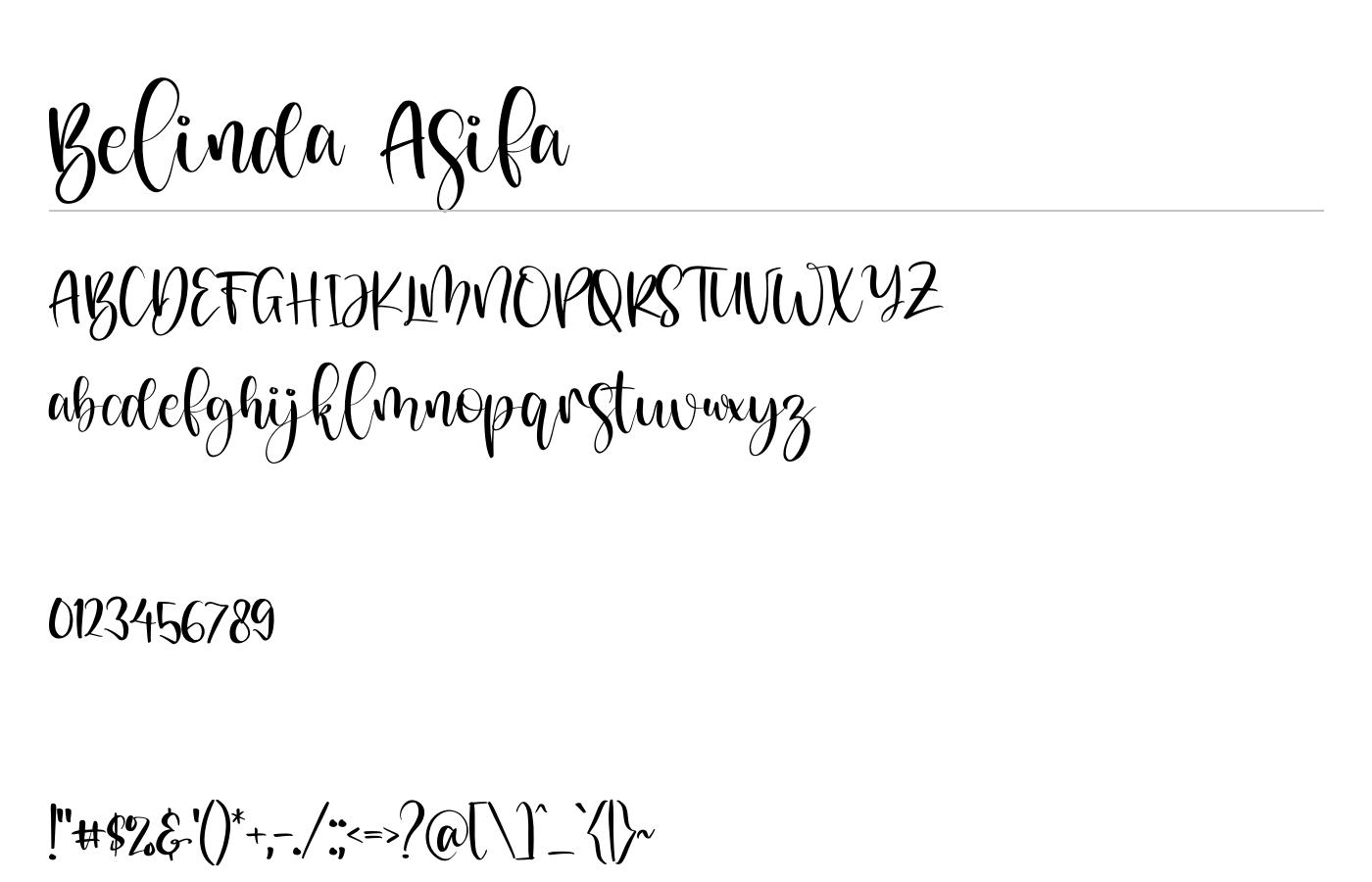
Belinda Asifa is a lively and elegant script font that features smooth, flowing strokes with varied thickness, giving it a hand-lettered charm. Its playful yet refined style, characterized by tall ascenders and distinctive swashes, makes it perfect for creative branding, invitations, and feminine or artistic designs where a personal, stylish touch is desired.
Belinda Asifa Font
About Belinda Asifa Font
| Font family | Belinda Asifa Font |
| Designer | Nanang Jamaludin |